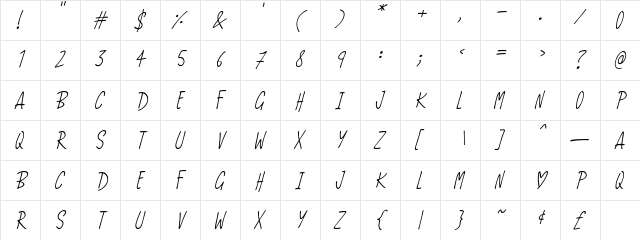
Love And Romance Italic
Design Context for Love And Romance Typeface
Love And Romance takes a measured approach to typography — its balanced proportions and neutral character make it a reliable workhorse for both digital and print work. The slanted form adds forward momentum and visual energy.
Pro Tip: Use Love And Romance for emphasis, pull quotes, and subheadings where its slanted energy can add rhythm to the layout.